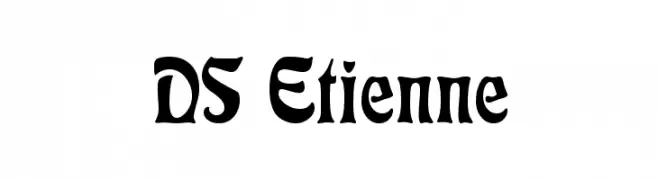
A bold, gothic-inspired font with thick strokes and sharp edges.
A bold, ornate Gothic-style font with intricate details and dramatic flourishes.
A bold, decorative blackletter font with intricate details and a historic flair.
A bold, ornate font with a classic, historical style.
A bold, gothic-style blackletter font with intricate details.